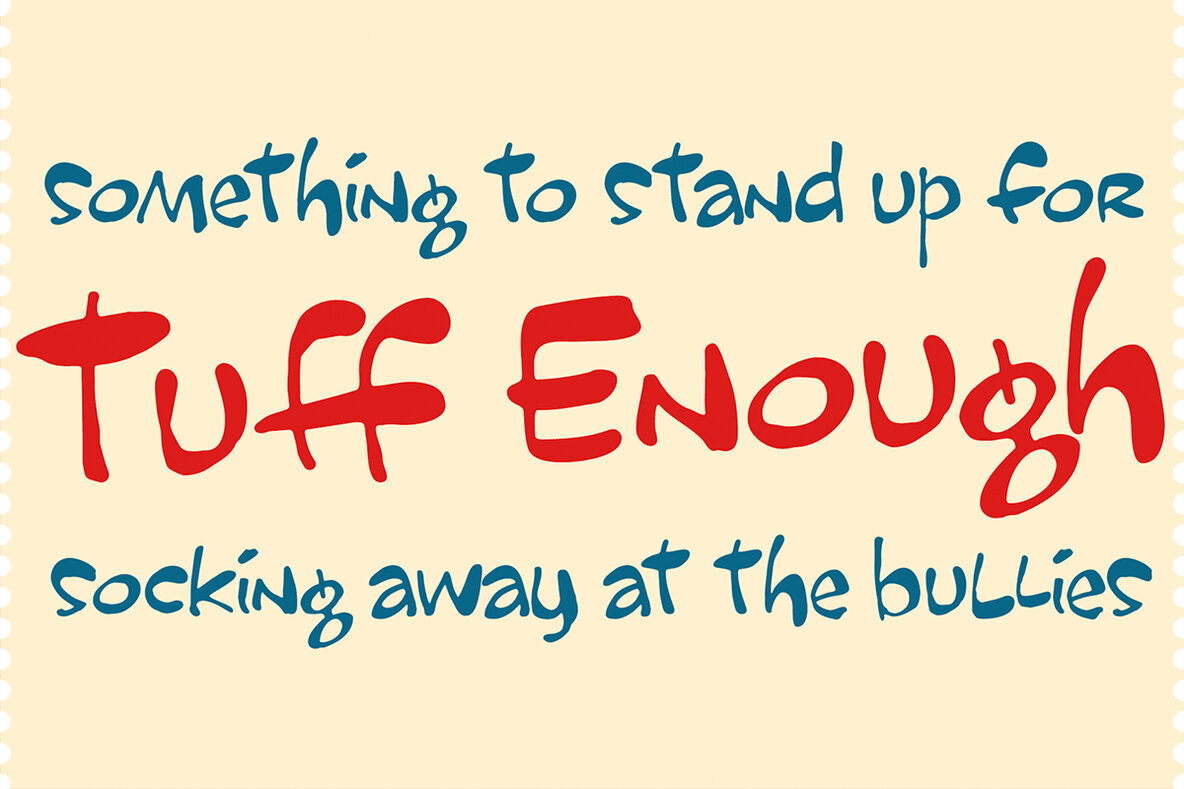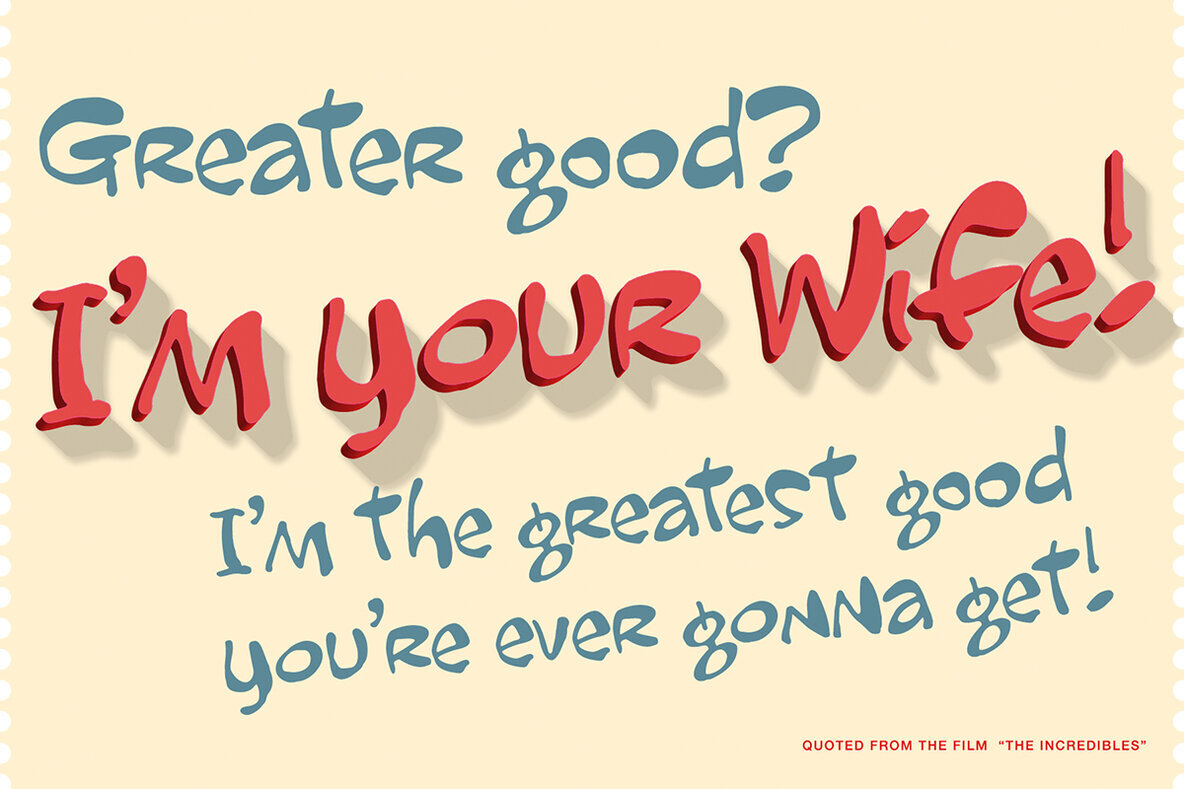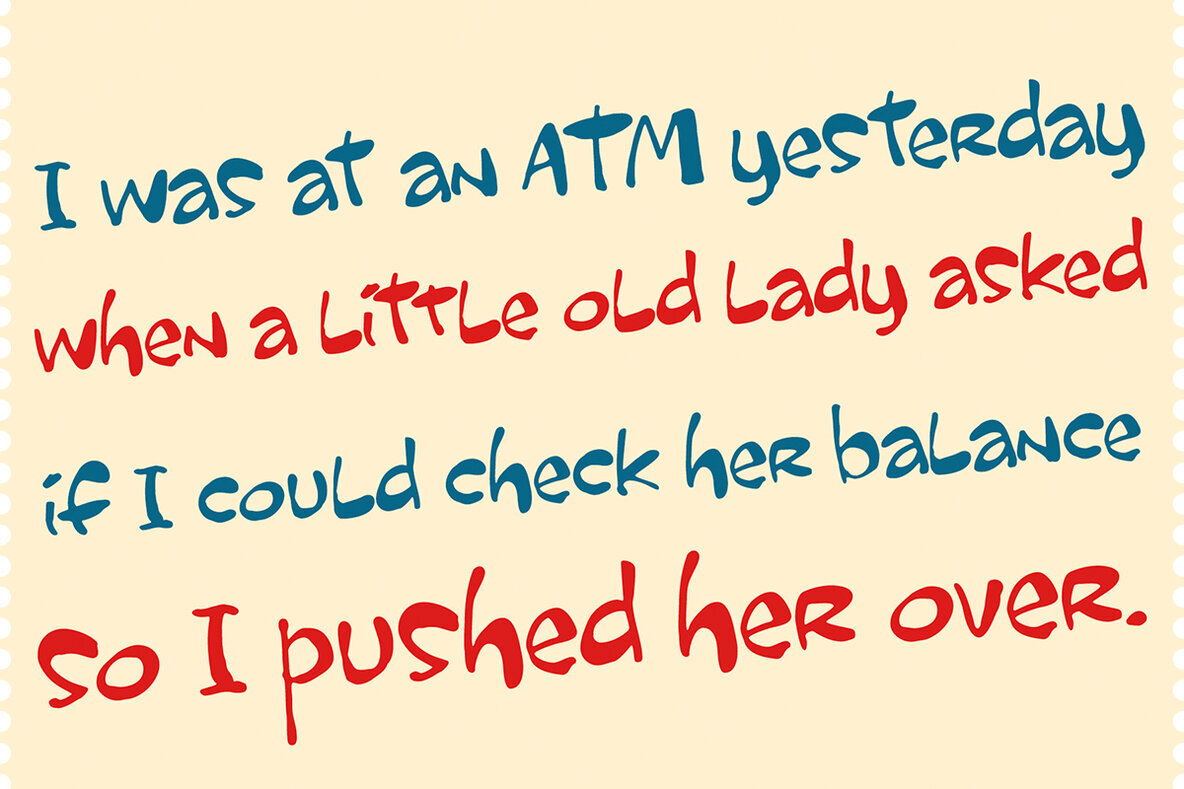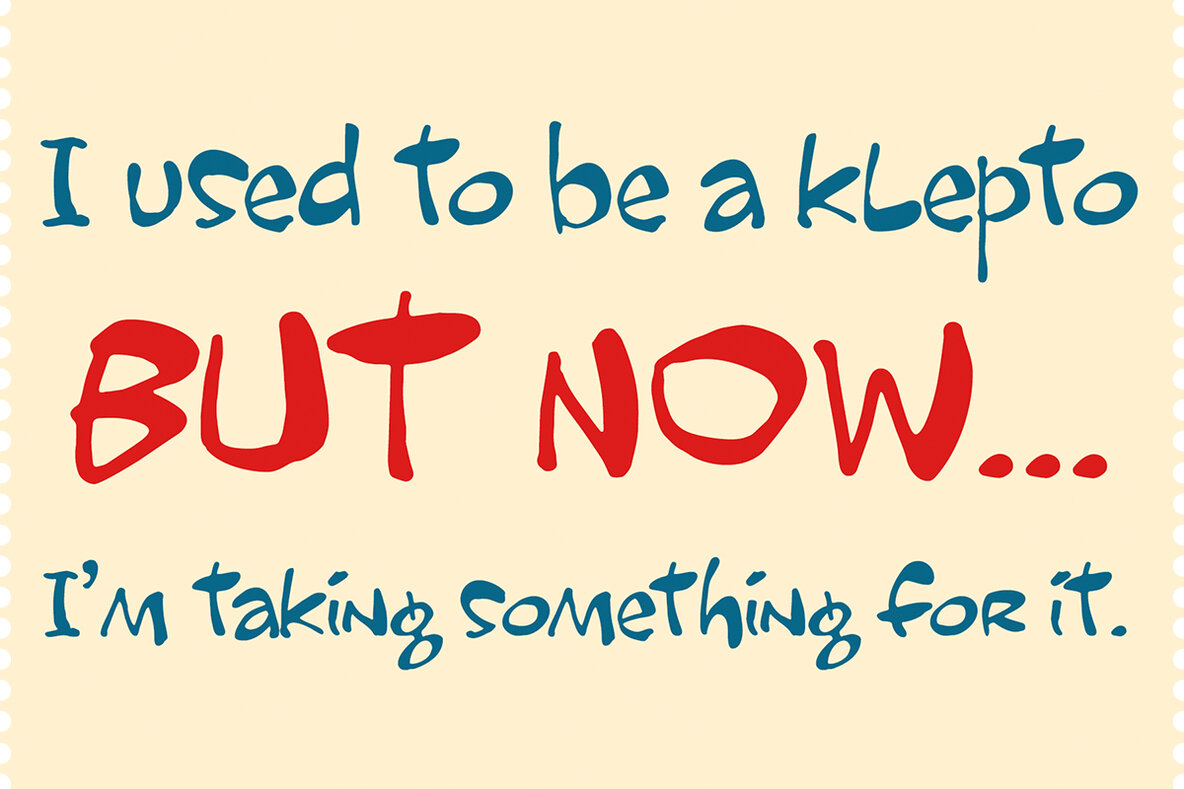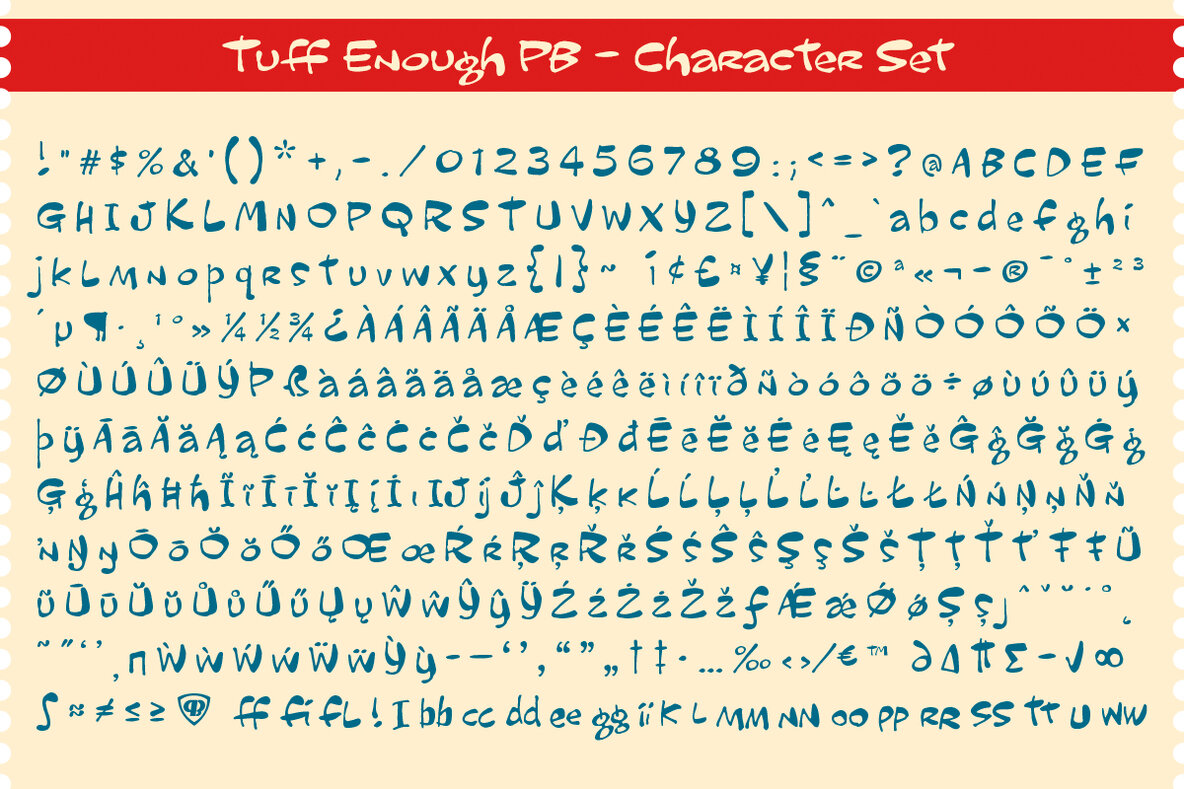
Tuff Enough PB Font
Tuff Enough PB
Step back in time with Tuff Enough PB, a sans-serif font that channels the groovy essence of the 1970s. Inspired by a nostalgic birthday card, this typeface brings vibrant hand lettering to your digital toolbox. Tuff Enough PB's playful appeal is perfect for those seeking something unique and spirited in their design projects.Tuff Enough PB: A Brush Inked Font with 70s Flair